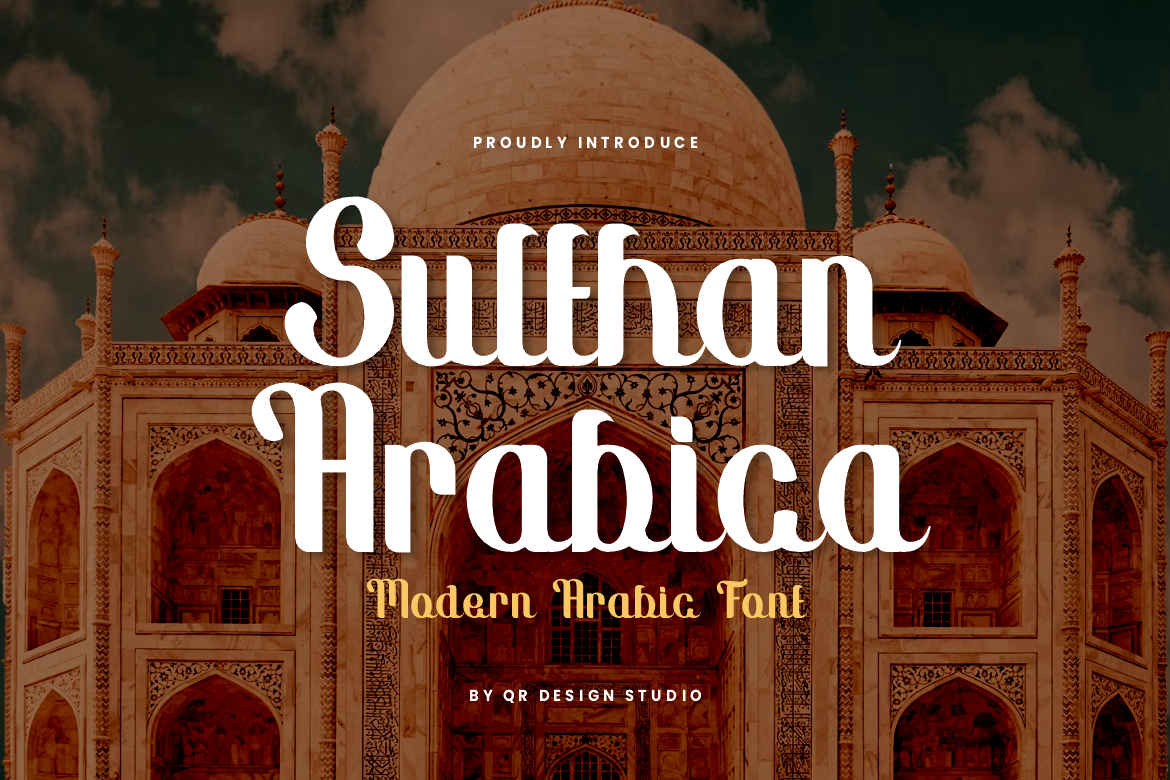
Sulthan Arabica - Arabic Font
Sulthan Arabica Font is a hand drawn and authentic display font. The font is suitable for any branding project like poster, logo, arabic, and many more. Outstanding in a wide range of contexts.